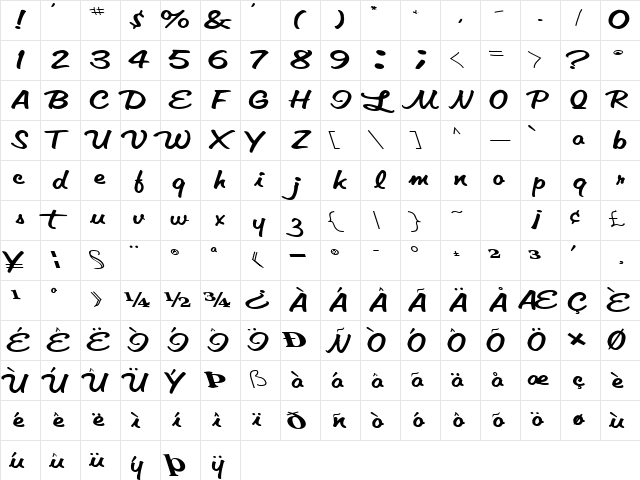
Complete WheelerDealer Bold glyph index. Displaying only characters natively supported by WheelerDealer Bold font.
WheelerDealer is a composed and adaptable typeface that performs quietly and consistently across a wide range of design contexts. Its bold stroke weight gives it real presence on the page.